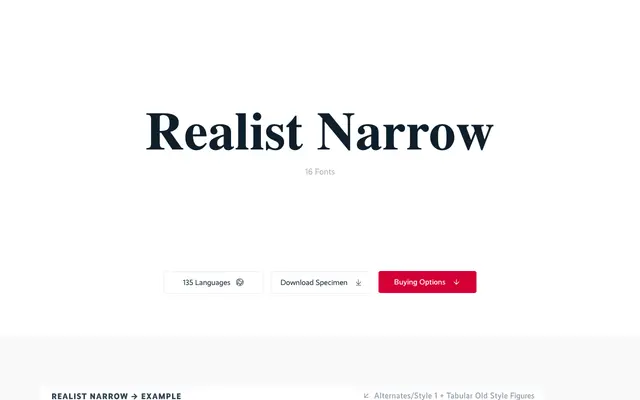
Realist Narrow
Supertype · Martin Wenzel
A condensed cut of the Realist family by Martin Wenzel, running 16 styles across eight weights with italics and broad language coverage for space-efficient text setting.
Realist Narrow sits at approximately 88% of the standard Realist width, making it suited to layouts where column space is tight or text density is high. The family spans Thin through Black with matching italics across all eight weights, totalling 16 fonts and 757 glyphs. OpenType features include typographic alternates, multiple figure sets, arrows and ornaments, and the family covers 135 languages.
Named 'Realist' and positioned within a family that includes standard and wide widths, placing it squarely in the realist/grotesque sans-serif tradition designed for text efficiency.